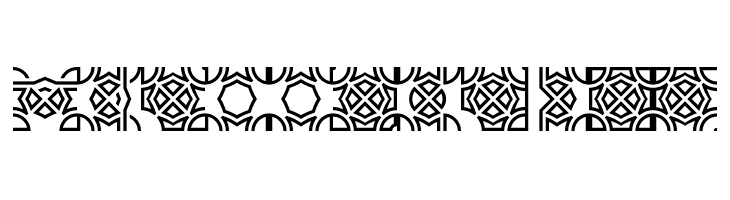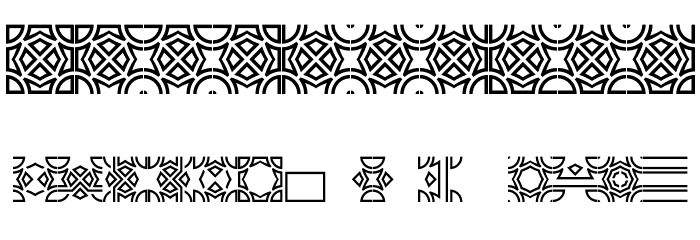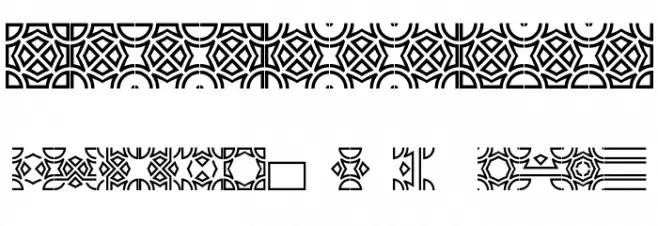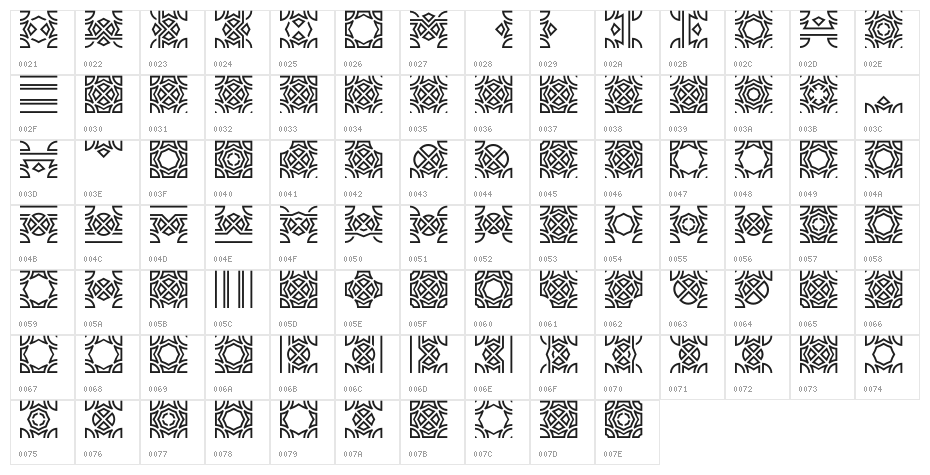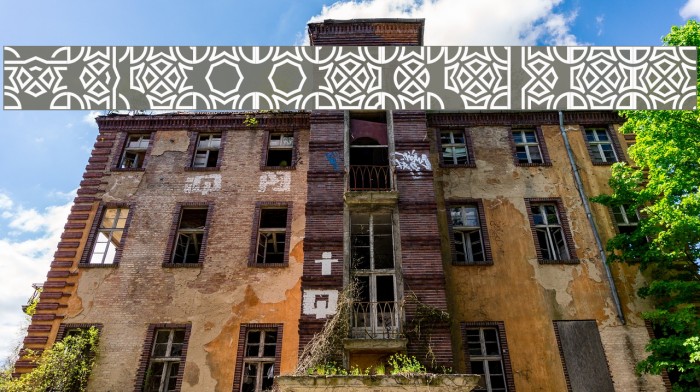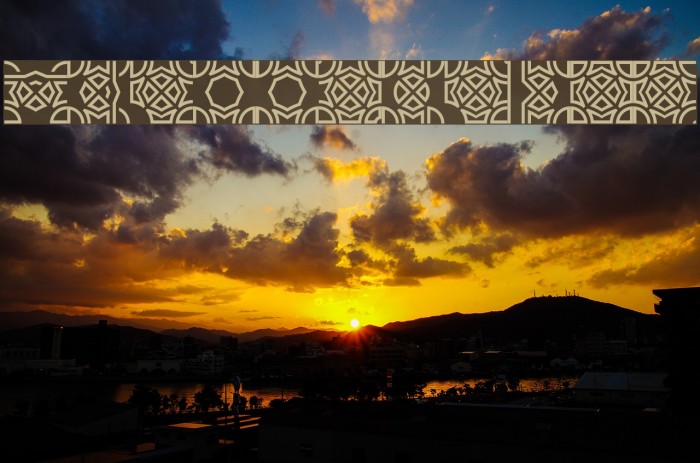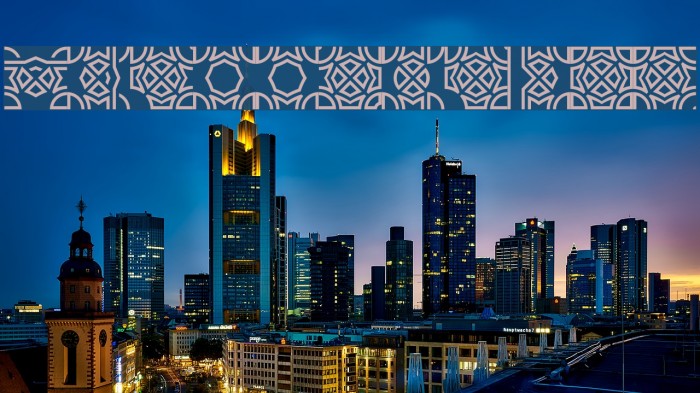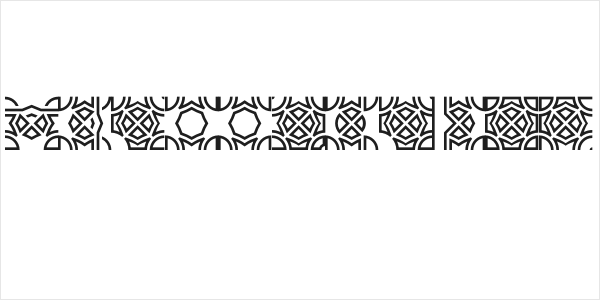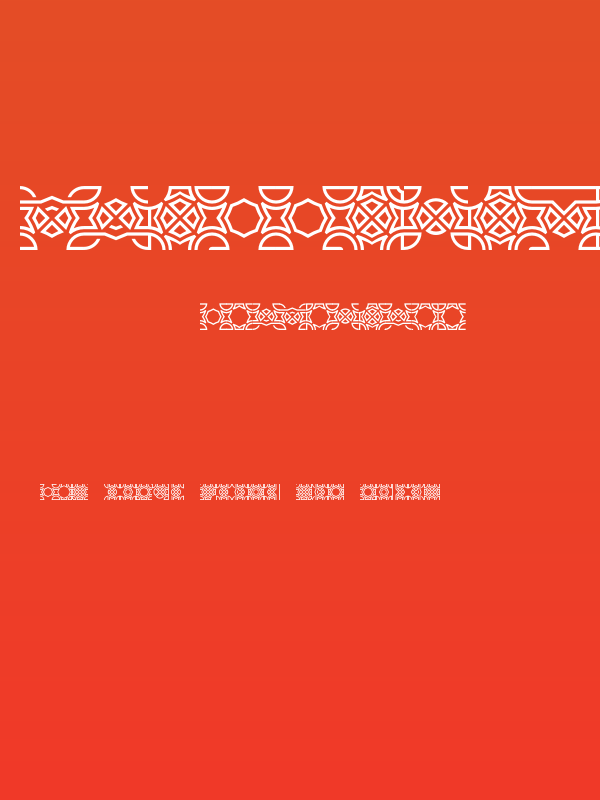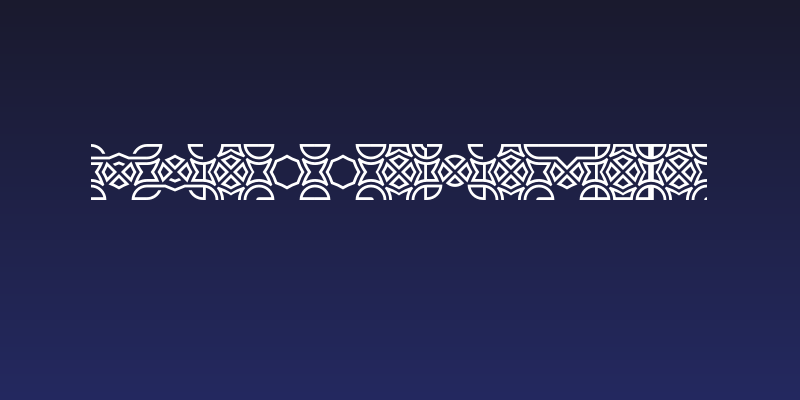
Opattfram01 Font
Opattfram01 Description
A highly decorative and geometric display font composed of intricate patterns and repeating motifs, with each character formed from interlocking lines and shapes. The style is reminiscent of ornamental borders or tile work, with a strong emphasis on symmetry and complexity.
| Overall Style | Decorative, Ornamental, Geometric |
| Use Case | Logos, Headlines, Decorative borders, Artistic projects |
| Proposed Projects | Posters, packaging, branding, book covers, decorative headings, event invitations, artistic projects. |